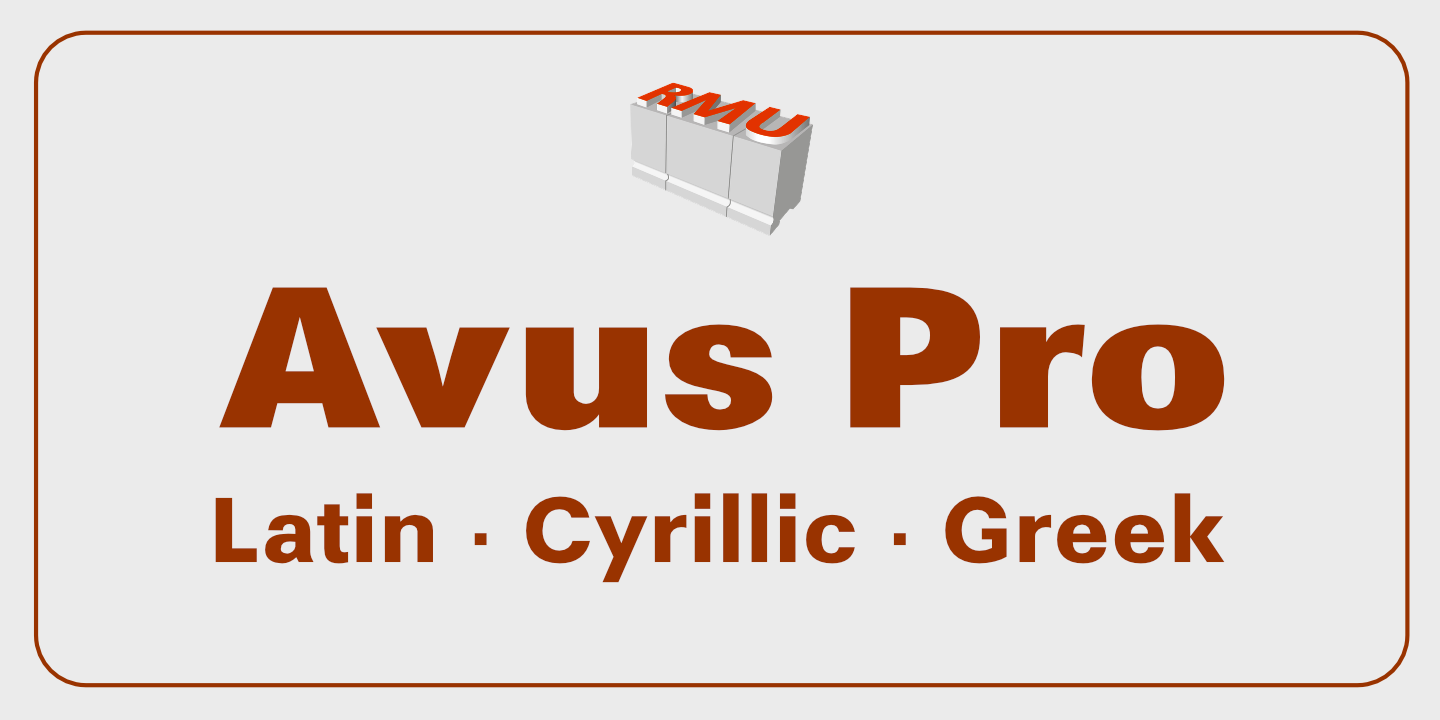
The Avus Pro Font is a sleek, contemporary, and highly versatile sans-serif typeface, designed with a focus on geometric precision and sophisticated simplicity. Its clean lines, balanced proportions, and often subtle humanist touches make it an excellent choice for modern corporate branding, cutting-edge digital interfaces, luxury product packaging, editorial design for tech and lifestyle magazines, and professional web content. Whether you’re crafting a refined brand identity or a sophisticated digital experience, this font will imbue your project with a sense of innovative professionalism and understated elegance.
What makes the Avus Pro Font so exciting is its exceptional ability to deliver clarity and a strong visual presence without being overbearing. It features meticulously crafted letterforms and thoughtful spacing, ensuring outstanding legibility across a wide range of sizes and applications. This font is perfect for designers who prioritize a clean, uncluttered, and highly adaptable visual identity that feels both current and authoritative. It stands out by offering a subtle yet distinct personality, making any text it graces feel incredibly precise and thoughtfully designed. The inherent clarity and sophisticated simplicity of the Avus Pro Font ensure that your message is communicated with undeniable elegance and directness.
The Avus Pro Font typically boasts a comprehensive family to support diverse design needs, offering extensive versatility for typographic hierarchy. While specific variations may depend on the font package, you can generally expect to find a wide range of weights, such as Hairline, Thin, Light, Regular, Medium, SemiBold, Bold, ExtraBold, and Black, along with their corresponding Italic or Oblique styles. This extensive selection provides ample options for creating visual interest and emphasis. Additionally, premium "Pro" versions often include a rich set of OpenType features, such as various figure styles (e.g., lining, old-style, tabular), small caps, ligatures, and alternate characters, allowing for incredibly nuanced and custom typographic solutions. This robust family ensures that the Avus Pro Font can be adapted to almost any design requirement, maintaining a consistent, modern, and highly functional aesthetic throughout your project.